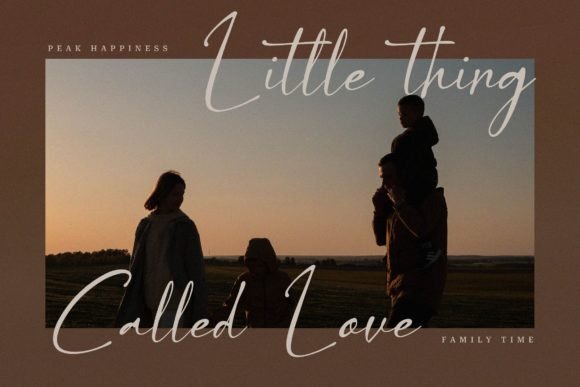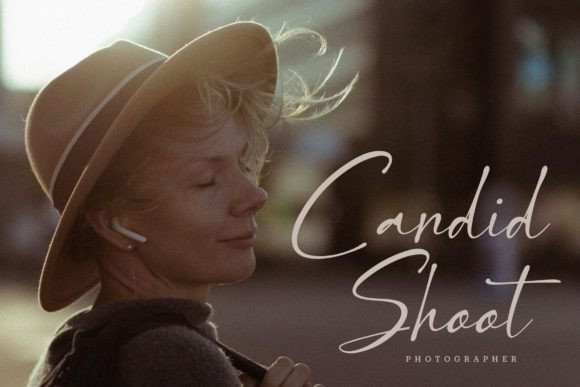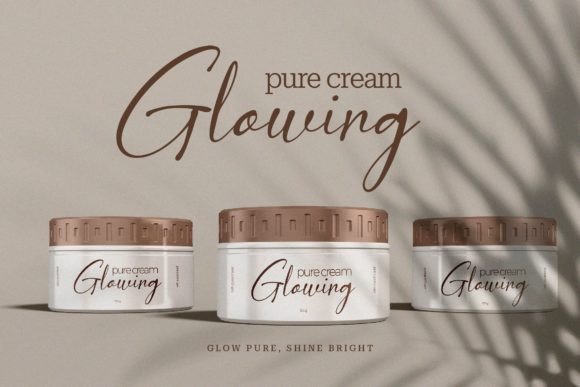
Introduction to Lethilya Trivalle Font
Have you ever been working on a creative project, pouring your heart and soul into every detail, only to be held back by the perfect font to bring it all together? For designers, finding the right font can be the difference between a great design and a truly exceptional one. That’s where the Lethilya Trivalle Font comes in – a high-quality, free download that’s perfect for adding a touch of Casual Chic Script to your projects.
With its versatility and stylish flair, the Lethilya Trivalle Font is an invaluable resource for designers looking to add a little extra something to their work. Whether you’re creating logos, branding projects, or product packaging, this font is sure to bring a level of sophistication and elegance that will elevate your designs to the next level.
One of the standout features of the Lethilya Trivalle Font is its transparent background, making it easy to use and manipulate in even the most complex designs. Whether you’re working on a photography project or a special event, this font is the perfect choice for adding a touch of Casual Chic Script to your work.
Key Features of Lethilya Trivalle Font
- High-quality design resource ideal for creative projects, offering a unique and stylish touch.
- Features a large character set, including uppercase and lowercase letters, numbers, and punctuation marks, making it suitable for a variety of applications.
Honest Review: Lethilya Trivalle Font
I recently stumbled upon the Lethilya Trivalle Font, and I must say it’s been a valuable addition to my design resource library. This font is perfect for any creative project that requires a high-quality, elegant touch.
What works well: ✨ The Lethilya Trivalle Font is incredibly versatile, and its unique design makes it perfect for a variety of applications, from logotypes to body text. Its transparent background makes it easy to overlay on any image or design element, giving me endless possibilities for creative expression.
What doesn’t work well: ⚠️ While I love the design of the font, I do find it a bit limited in its character set. It’s primarily designed for Latin-based languages, which may be a drawback for designers working on international projects. Additionally, the font’s high-quality design makes it a bit heavier in file size, which may be a concern for designers working on projects with strict file size limitations.
Overall, I’m very impressed with the Lethilya Trivalle Font. It’s a great addition to any designer’s library, and I appreciate that it’s available for free download. While it may have some limitations, its unique design and high-quality make it a valuable resource for any creative project.
- Perfect for logotypes, body text, and other creative applications
- Unique and elegant design
- Transparent background for easy overlay
- May have limited character set
- Higher file size due to high-quality design
Lethilya Trivalle Font
Tips for Getting the Most Out of Lethilya Trivalle Font
Here are some tips for getting the most out of Lethilya Trivalle Font:
- Use the font on a transparent background to create a unique and eye-catching design.
- Combine Lethilya Trivalle Font with other high-quality design resources to create a cohesive and professional-looking design.